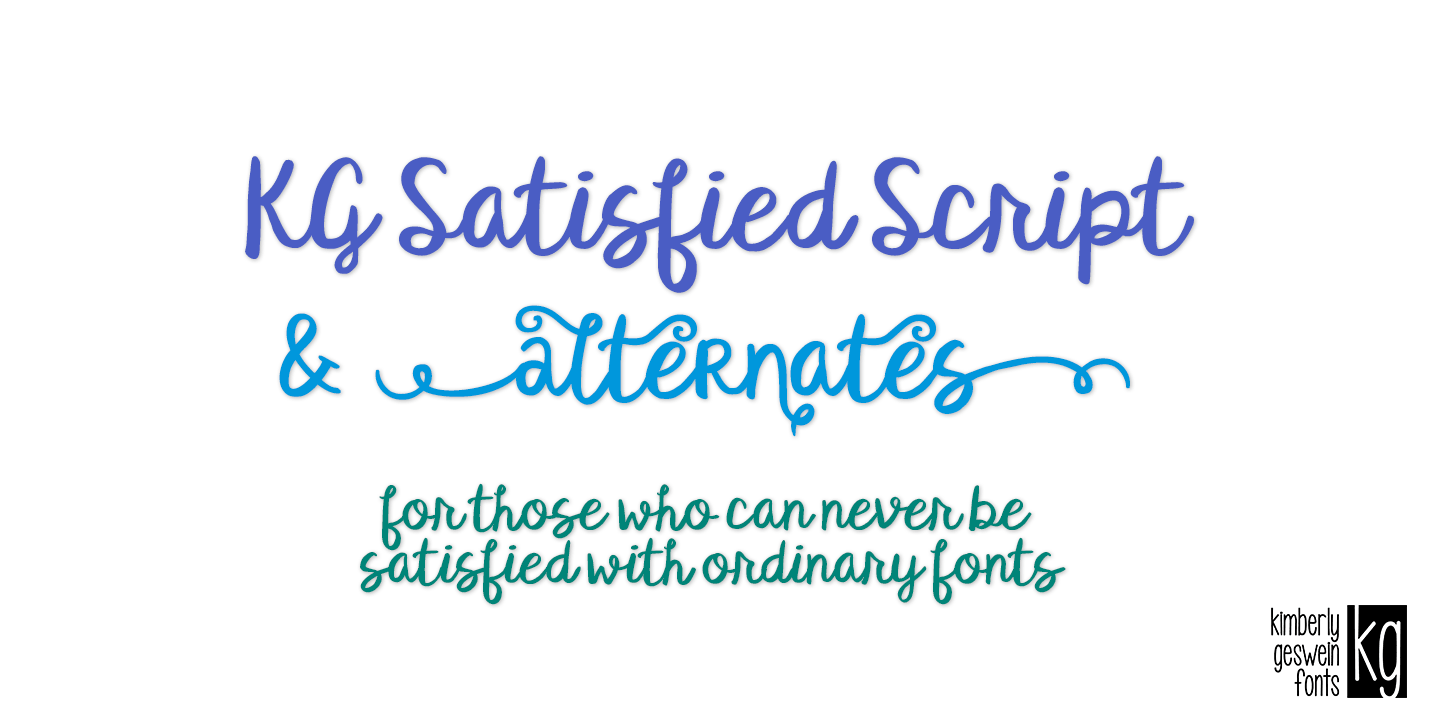
Designed by Kimberly Geswein, KG Satisfied Script is a hand drawn font family. This typeface has two styles and was published by Kimberly Geswein Fonts.
I’ve long admired script fonts with tons of alternates and ways to customize the look, but I wanted to make sure that when I finally made one it was true to my style and it was easy to use for those customers of mine who don’t use fancy design programs.